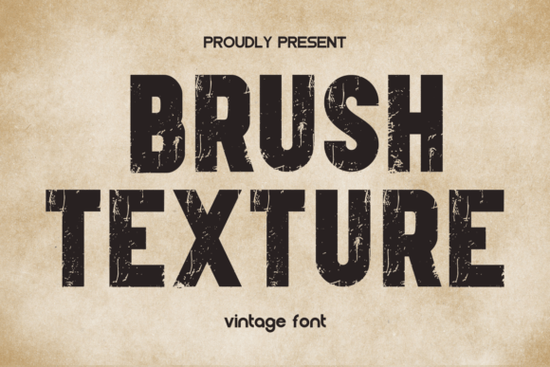
Brush Texture Font is a standout choice for anyone looking to add a vintage flair to their designs. With its bold strokes and unique texture, this font brings a handcrafted feel that can elevate any project. Whether you're creating t-shirt graphics, banners, or book covers, Brush Texture offers a versatile and eye-catching option that stands out from the crowd.
Designed with wide characters and strong serifs, Brush Texture Font is ideal for headlines and display text. Its distinct style makes it perfect for branding, packaging, and promotional materials. The font’s natural brush-like appearance gives it a one-of-a-kind look that feels both modern and timeless.
Why Use Brush Texture Font?
If you’re looking for a font that adds character without being too complicated, Brush Texture is a great fit. It works well in both digital and print formats, making it a valuable addition to your design toolkit. The font’s boldness ensures it commands attention, while its readability keeps it suitable for a wide range of applications.
Designers and crafters often turn to this font for projects that require a personal touch. Its texture mimics real brush strokes, which can give your work a more authentic, handmade feel. This makes it especially popular among print-on-demand sellers and small businesses looking to create unique products.
Best Uses for Brush Texture Font
This font shines in a variety of creative projects. Here are some common applications:
- Headlines and logos: Its bold style makes it perfect for titles and brand names.
- T-shirt and hoodie designs: The font adds a dynamic look that catches the eye.
- Banners and posters: Ideal for event promotions or business signage.
- Book and product covers: Adds a vintage aesthetic that stands out on shelves.
- Handicrafts: Great for custom labels, tags, and decorative elements.
Whether you're working on a digital project or a physical product, Brush Texture Font provides a stylish and functional solution.
How to Get the Most Out of This Font
To make the most of Brush Texture Font, consider pairing it with simpler typefaces for balance. For example, using a clean sans-serif font for body text can help contrast with the boldness of Brush Texture. This combination keeps your design from feeling overwhelming while maintaining visual interest.
Experimenting with color and background can also enhance the font’s impact. Dark text on a light background or vice versa can make the texture more visible and engaging. Don’t be afraid to play with different sizes and spacing to find what works best for your specific project.
For those new to using textured fonts, starting with a few key elements like a headline or logo can help you get comfortable with its style before applying it more broadly.
Brush Texture Font is a valuable resource for designers, crafters, and small business owners who want to add a unique and vintage feel to their work. Its versatility and distinctive style make it a go-to choice for a wide range of creative projects.
Quick Tips for Using Brush Texture Font
- Use it for headlines and logos to draw attention.
- Pair it with simpler fonts for better readability.
- Test different colors and backgrounds to highlight the texture.
- Apply it to t-shirts, book covers, and promotional materials for a handmade look.